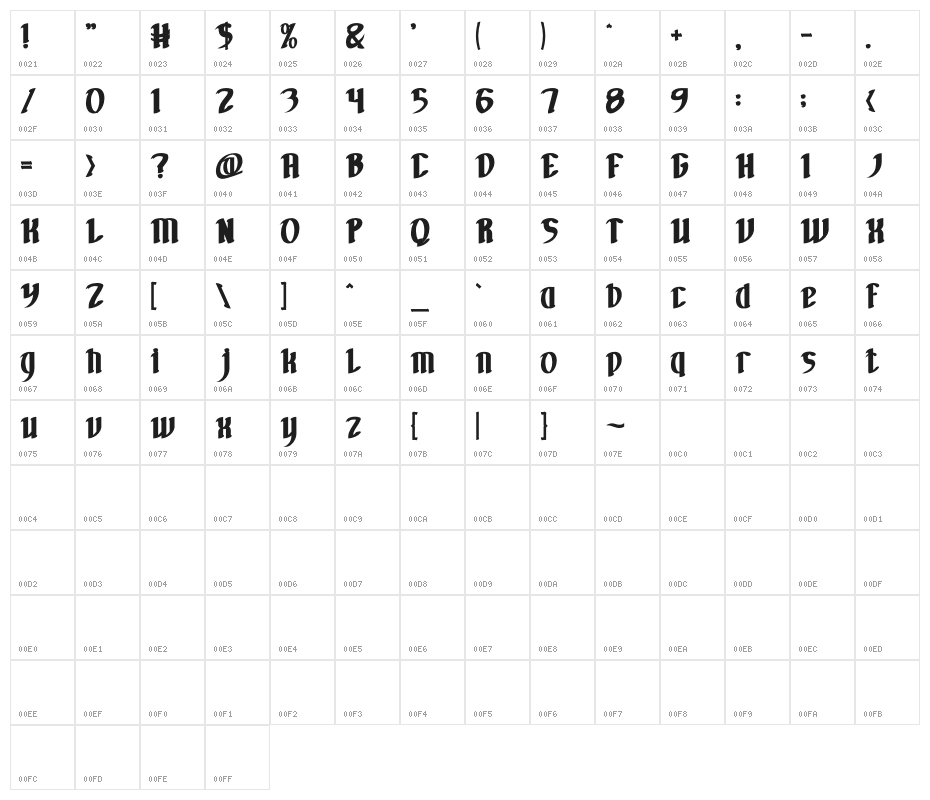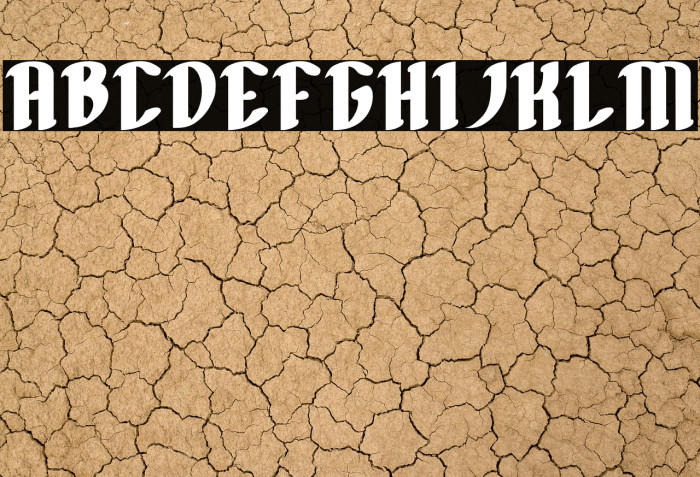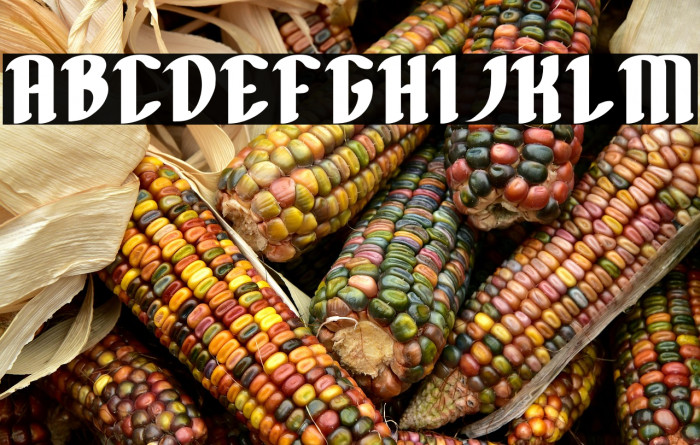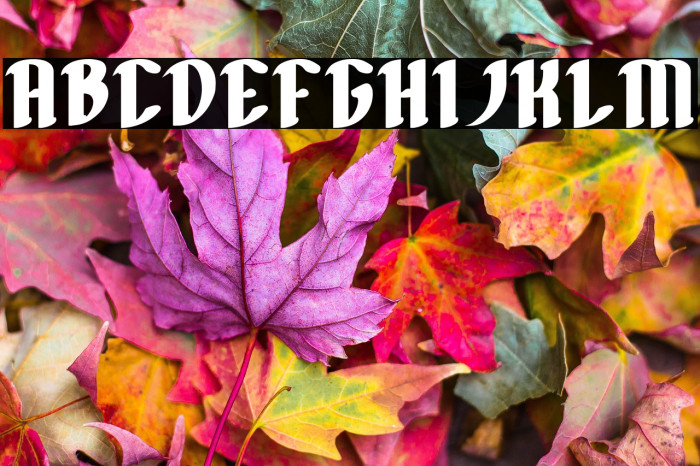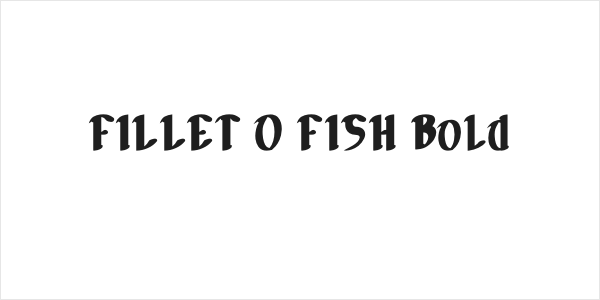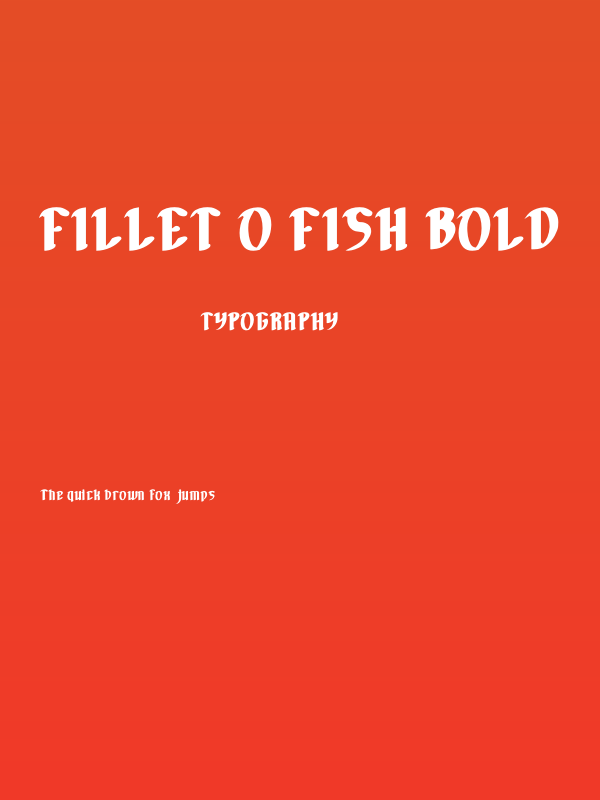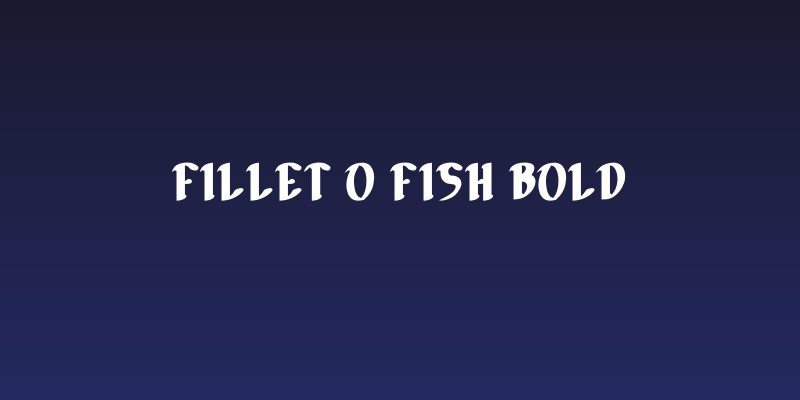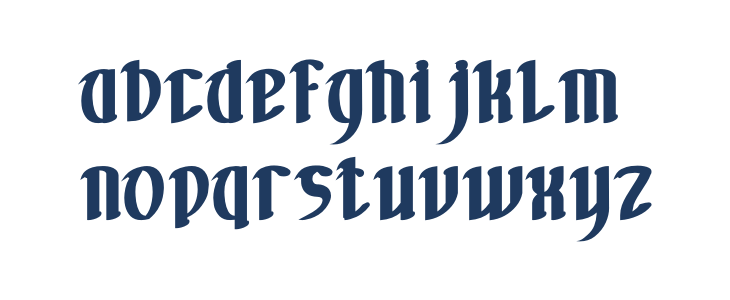
FILLET O FISH Bold Font
FILLET O FISH Bold Description
This font features a bold and striking blackletter style, characterized by its dramatic, angular strokes and sharp edges. The uppercase and lowercase letters maintain a consistent design, with a strong emphasis on vertical lines and pointed serifs. The numerals and special characters are equally bold, complementing the overall aesthetic. This font evokes a sense of tradition and history, reminiscent of medieval script, yet it maintains a modern edge with its clean, crisp lines. The spacing between characters is tight, enhancing its bold presence and making it ideal for impactful designs.
| Proposed Projects | Ideal for branding, logos, posters, and any design requiring a bold, historical aesthetic. |